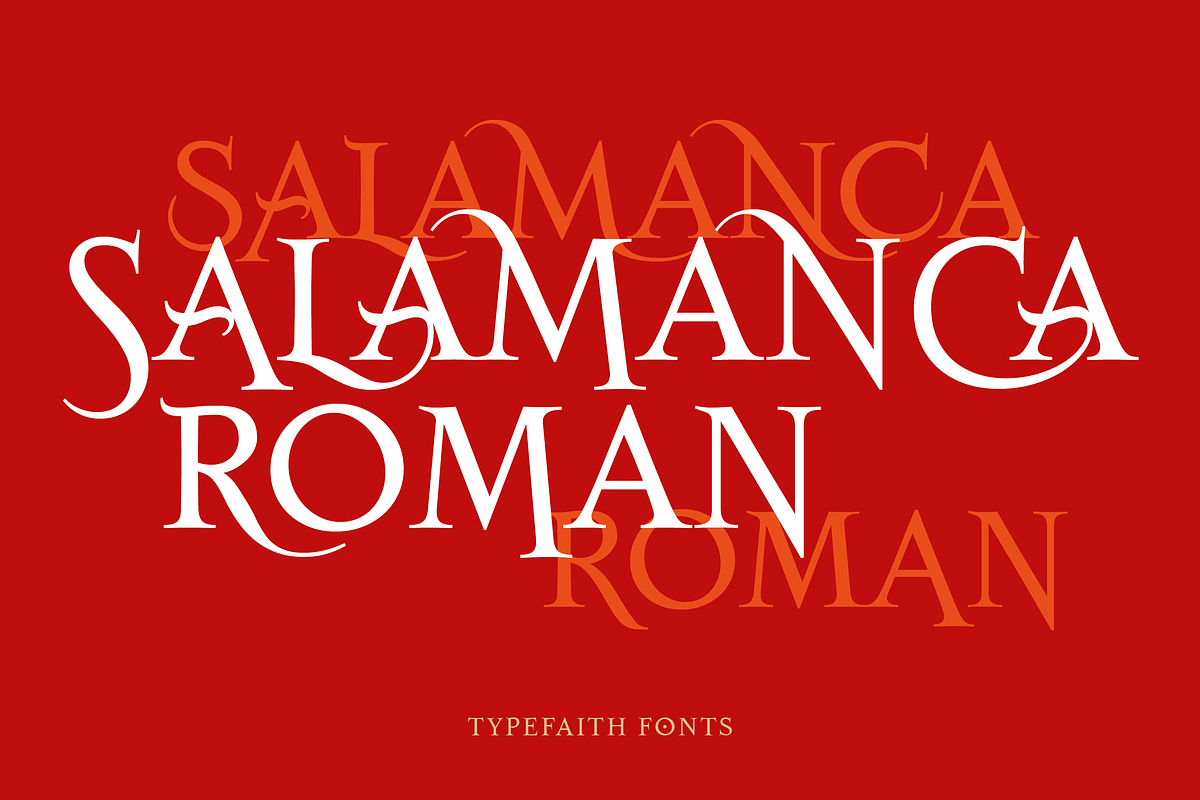
SalamancaTF Font Free Download is an elegant and versatile typeface designed to bring both sophistication and clarity to your designs. With its refined serifs and modern structure, SalamancaTF is perfect for creating high-end branding, editorial layouts, logos, and upscale websites.
Its balanced letterforms offer excellent readability, making it suitable for both display and body text. Whether you're crafting a luxurious brand identity, designing a stylish publication, or building a professional website, SalamancaTF Font Free Download elevates your typography with timeless elegance.